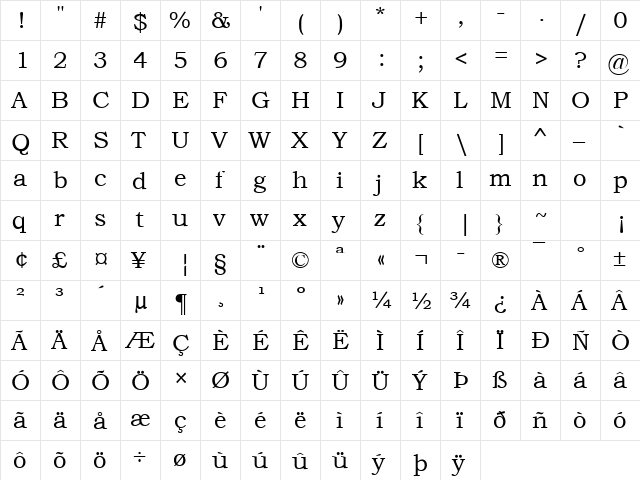
Allman Bros. 2 Regular Font Preview
Allman Bros. 2 Regular
Allman Bros. 2 Regular Font Details
Design Context for Allman Bros. 2 Typeface
Allman Bros. 2 offers clean, dependable letterforms without strong stylistic allegiance, making it a practical choice for designers who need flexibility.
Pro Tip: Use Allman Bros. 2 in both headline and body roles to test its range before committing to a single application.